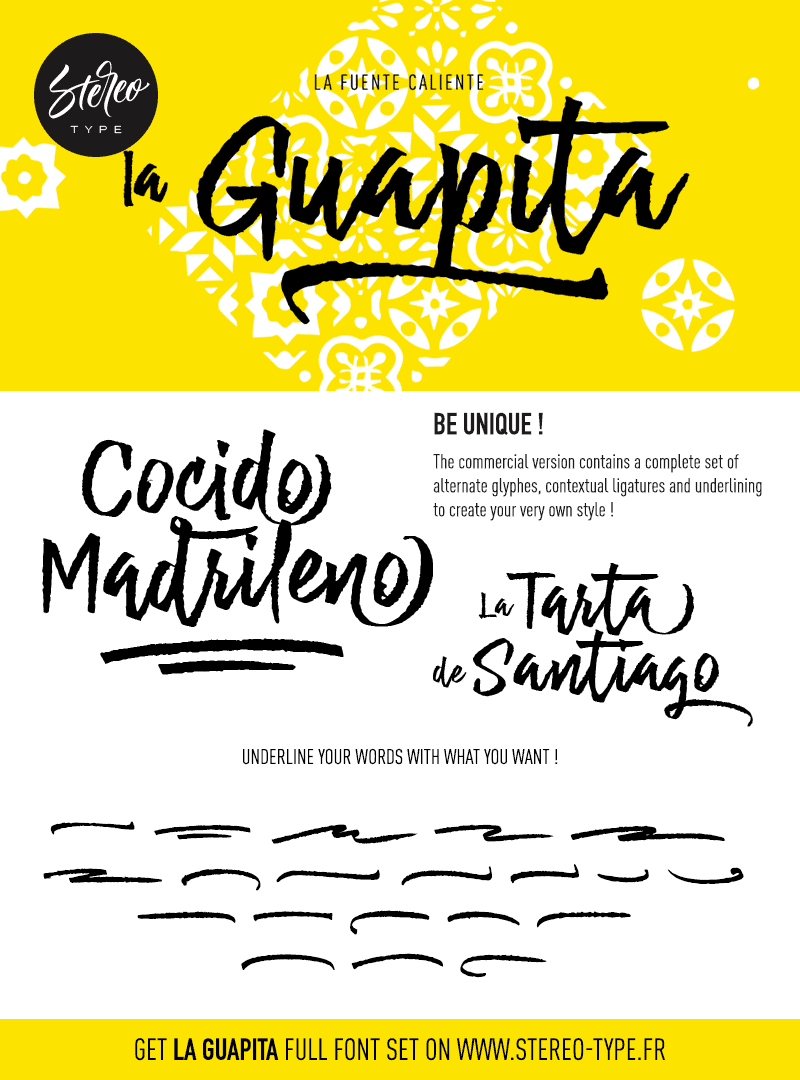
La Guapita could be categorized into the rough-script genre of fonts and was made from the Pilot Parallel Pen. The commercial version also includes all alphabets, contextual ligatures, and all the kinds of underlining that are possible.